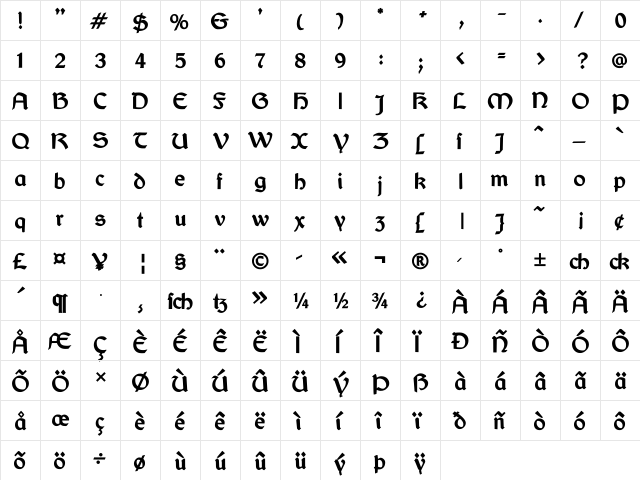
Bretagne Gaelic DemiBold
Bretagne Gaelic is a composed and adaptable typeface that performs quietly and consistently across a wide range of design contexts. The heavy weight commands attention and anchors typographic hierarchies.